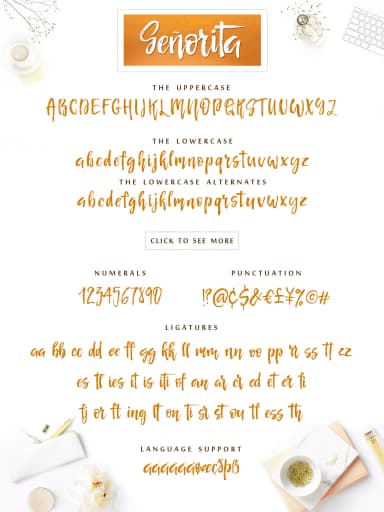
Señorita by Iradvilyuk is a dry brush script that brings organic, textured elegance to designs seeking authentic character and handcrafted appeal. The handwritten brushwork is particularly well-suited for wedding invitation suites, where its flowing strokes add romantic refinement to stationery collections. Beyond weddings, the font excels on artisan food packaging, boutique cosmetics branding, and personalized greeting card collections that prioritize handcrafted aesthetics and organic visual storytelling for brands with personality.
The script's textured quality works beautifully for small business owners designing product labels, social media graphics, and brand identity materials where authenticity matters most. The dry brush technique gives the letterforms a naturally imperfect quality that feels genuinely hand-drawn rather than digitally sterile, which resonates strongly with consumers who value artisanal and handmade products. This characteristic makes Señorita an excellent choice for eco-conscious businesses and creatives. The font includes extensive language support, enabling you to reach international audiences and create cohesive designs across multilingual projects without sacrificing character.
Whether you're creating boutique packaging, invitation designs, or brand identity for feminine-focused businesses, Señorita delivers the hand-lettered sophistication that distinguishes premium brands from mass-market alternatives and speaks directly to discerning customers. Discover Señorita on Creative Fabrica and incorporate its distinctive dry brush character into your next design project.
- Elegant, Flowing, Senorita Script
Señorita Font is a script font that shines as a display or heading face. Pair it with a clean sans-serif or serif font for body text — the contrast creates a clear hierarchy while the two styles stay balanced and easy to read.
Señorita Font